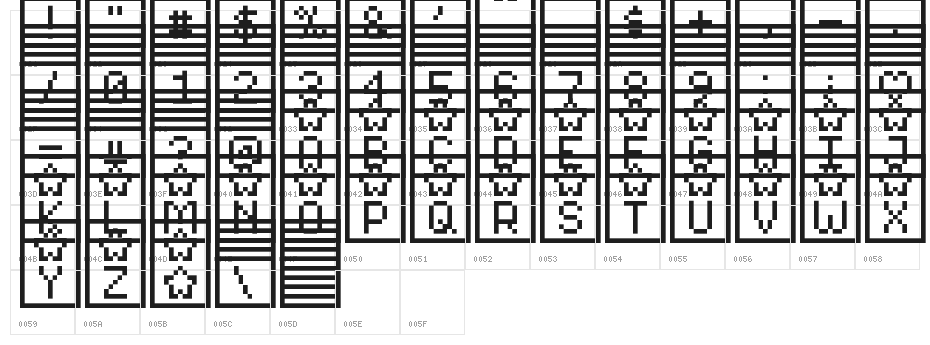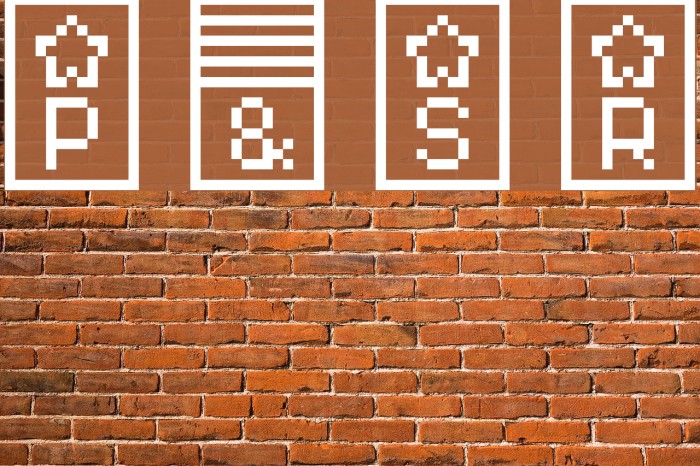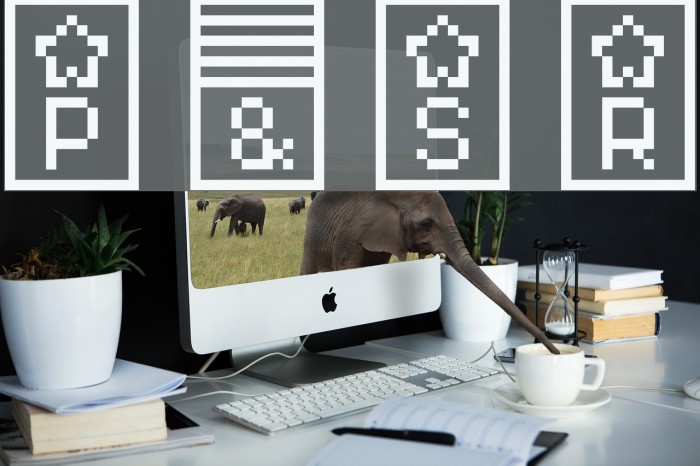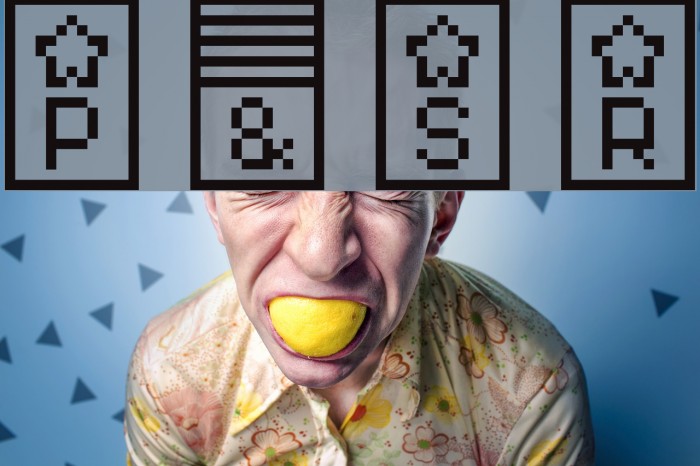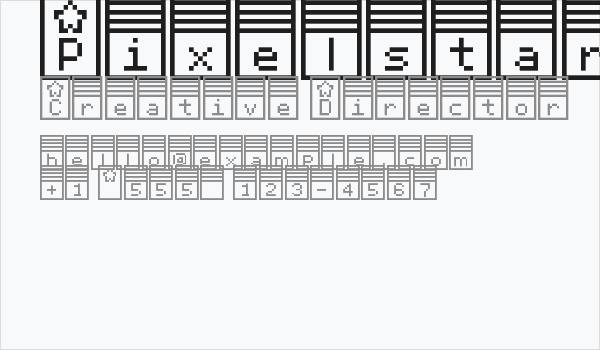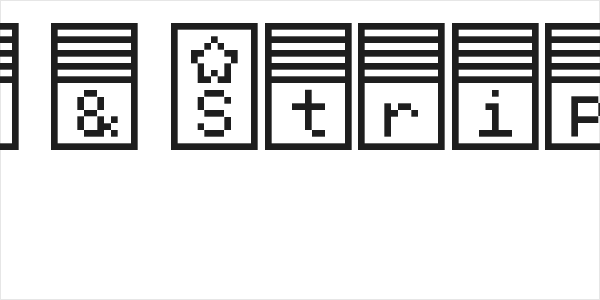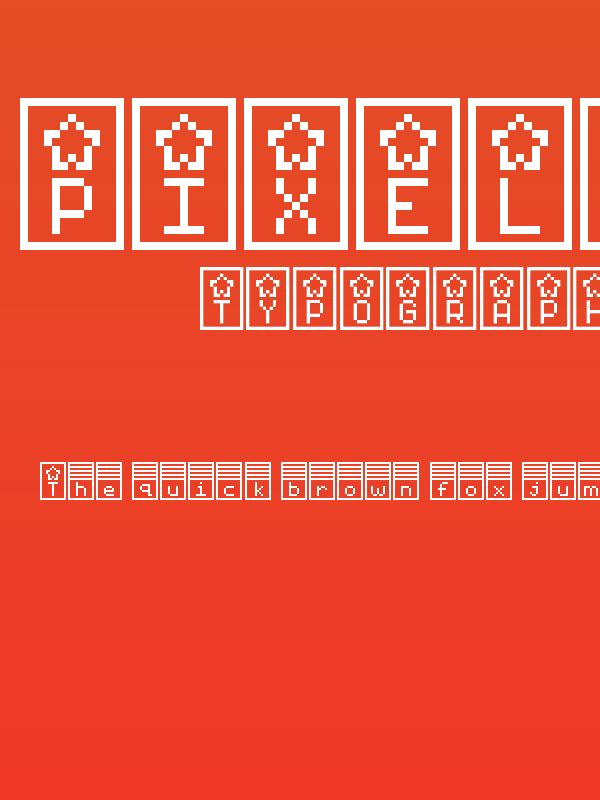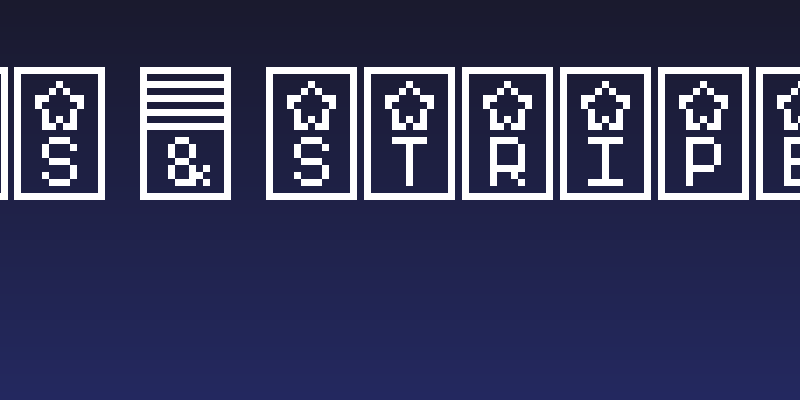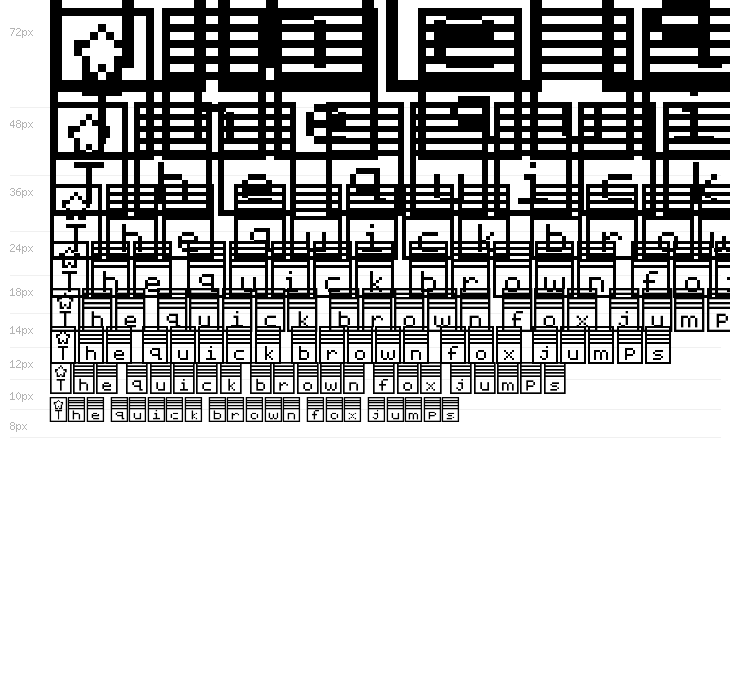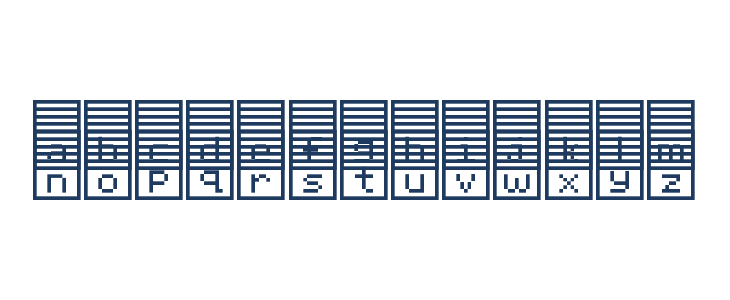
Pixelstars & Stripes Regular Font
Pixelstars & Stripes Regular Description
This font features a unique pixelated design with a star motif above each character, giving it a playful and decorative appearance. The characters are enclosed in rectangular boxes, enhancing the structured and geometric feel. The uppercase and lowercase letters, along with numbers and special characters, maintain a consistent style, making it ideal for digital and retro-themed projects. The font's pixelated nature adds a nostalgic touch reminiscent of early digital displays and video games.
Overall StyleRetro, Digital, Playful
Use CaseLogos, Digital art, Retro-themed projects
Proposed ProjectsIdeal for retro video game designs, digital art projects, and playful branding materials.